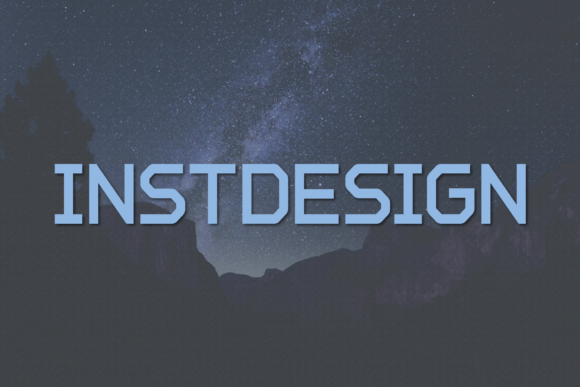
The Perfect Typography Solution for Designers
Have you ever stared at a blank page, struggling to find the right font to convey your message? It’s a familiar frustration for many designers, but what if you could have a reliable ally to help you bring your ideas to life? Enter the Instdesign Font, a modern and classy sans serif typeface that’s about to become your new go-to partner.
This incredibly versatile font is more than just a pretty face – it’s a valuable tool for designers who need a consistent and professional look across various projects. Whether you’re creating logos, designing wedding invitations, or crafting advertisements, the Instdesign Font has got you covered. With its extensive range of characters, numbers, and punctuation, you’ll be able to express your creativity with confidence and precision.
Instdesign Font Key Features
- Font Family: Instdesign is a sans-serif font family designed for modern and minimalist designs.
- Size: Instdesign font family includes 6 weights, ranging from Thin to Extra Bold, to cater to diverse design requirements.
- Resolution: Designed for high-resolution displays, Instdesign font family is ideal for digital applications and print materials.
- Unique Characteristics: Instdesign font features a clean and geometric design, with a focus on legibility and readability in digital environments.
- Language Support: Instdesign font family supports a wide range of languages, including Latin, Cyrillic, and Greek alphabets.
Instdesign Font Review
As a designer, I’ve had the chance to work with a wide range of fonts, and Instdesign Font is one of them. Overall, it’s a solid choice, but it has its strengths and weaknesses.
- Unique aesthetic: Instdesign Font has a distinctive look that’s perfect for creative projects or branding that needs a touch of sophistication.
- High-quality glyphs: The font’s glyphs are well-crafted, with clear lines and smooth curves.
- Good legibility: Instdesign Font is easy to read, even at smaller font sizes.
- Limited language support: Instdesign Font only supports a limited number of languages, which may be a concern for projects that require multilingual support.
- Not ideal for body text: While Instdesign Font is great for headings and titles, it may not be the best choice for body text due to its formal and condensed appearance.
Overall, Instdesign Font is a great addition to any designer’s toolkit. While it may not be perfect for every project, its unique aesthetic and high-quality glyphs make it a solid choice for creative and branding projects. Just be aware of its limitations and use it accordingly.